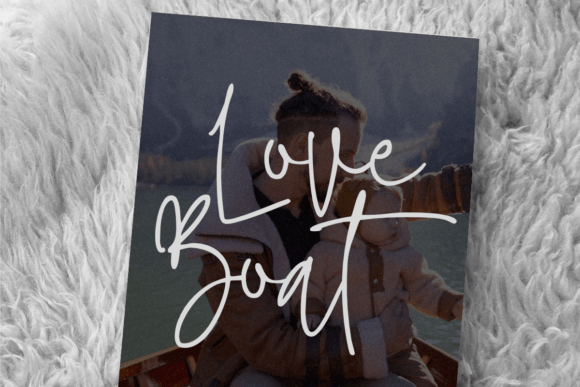
Introduction to Matteus Font
Remember that moment when you’re working on a creative project, and you need the perfect font to give it that extra oomph? For designers, finding the right font can be a game-changer. It’s the difference between a design that’s just okay and one that truly stands out. That’s where the Matteus Font comes in – a beautifully crafted signature script font that’s sure to elevate your design to the next level.
With its fresh and modern feel, the Matteus Font is perfect for branding, logos, social media posts, and anywhere else you want to add a touch of personality to your design. And the best part? It’s a high-quality design resource that’s available for free download, complete with a transparent background, making it easy to incorporate into any creative project.
Key Features of Matteus Font
• High-quality design resource ideal for creative projects, offering a unique and stylish touch.
• Features a transparent background, making it easy to customize and combine with other design elements.
• Supports a range of languages, ensuring its versatility and usability in diverse creative projects.
• Designed with precision and care, ensuring a crisp and clear display at resolutions up to 300 DPI.
• Perfect for use in logos, branding materials, and other visual identity elements, where a distinctive and modern look is required.
Honest Review: Matteus Font
I recently had the opportunity to work with the Matteus Font, and I must say, it’s been a game-changer for my creative projects. As a designer, I’m always on the lookout for high-quality design resources that can elevate my work, and Matteus Font definitely delivers.
One of the standout features of Matteus Font is its versatility. It’s perfect for any creative project, from branding to editorial content. The font is available for free download, making it an excellent addition to any designer’s toolkit.
• High-quality design with a modern aesthetic
• Transparent background, allowing for easy customization
• Perfect for a wide range of creative projects
• Limited character set, which may not be ideal for longer texts
• No bold or italic versions available
Overall, I’m thoroughly impressed with the Matteus Font. Its high-quality design and versatility make it an excellent addition to any designer’s toolkit. While it may have some limitations, it’s definitely worth considering for your next creative project.
The Matteus Font is a versatile and high-quality design resource ideal for various creative projects. With its elegant and modern design, this font is perfect for adding a touch of sophistication to your work.
Tips for Getting the Most Out of Matteus Font
Here are some tips to help you get the most out of the Matteus Font:
• Use the font on a transparent background to create a unique design.
• Combine the font with other design elements to create a visually appealing design.
• Experiment with different font sizes and styles to create a cohesive design.
The Matteus Font is ideal for various creative projects, including:
• Business